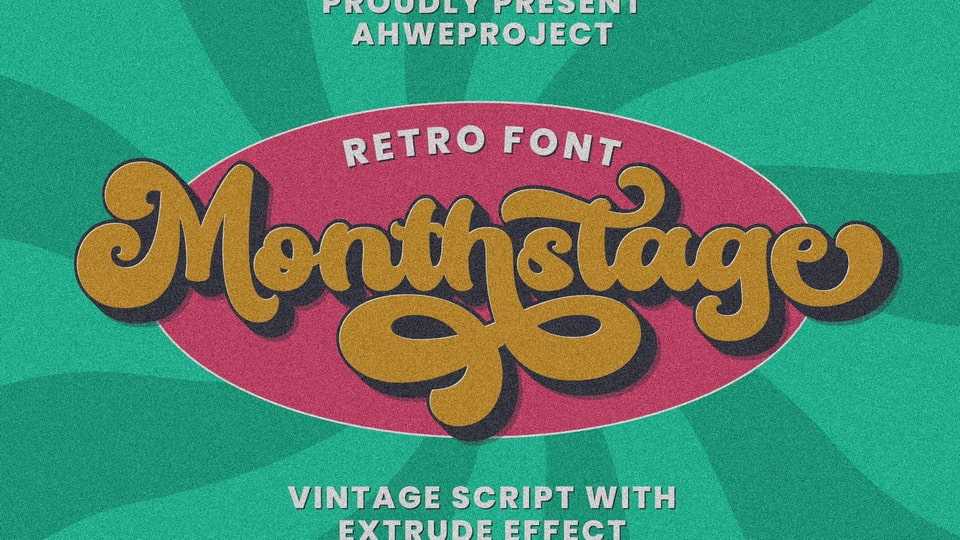
Download Monthstage font, a vintage script typeface inspired by retro typography and lettering in the 70s and 80s combined with a bold typography style.